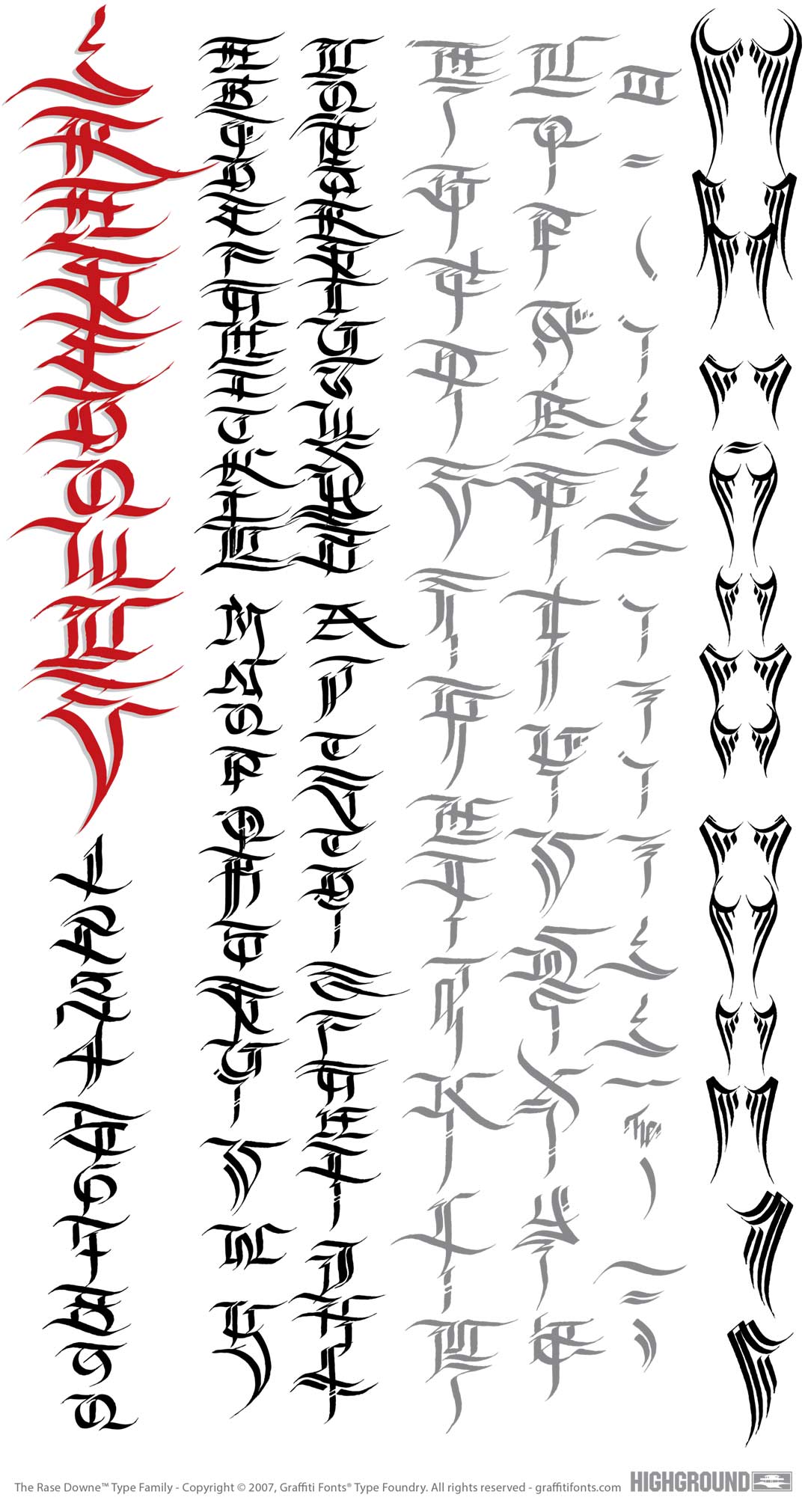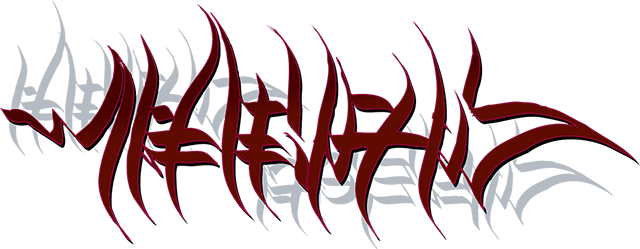
RaseDowne Font
RaseDowne Title Image
RaseDowne Graffiti Alphabet
RaseDowne Graffiti Font Family
Hand written calligraphy letters inspired by a mix of graffiti and gangland styles combined with influence from various eastern & old european scripts. This typeface is made to be rotated 90 degrees so it reads downwards making it especially useful for tattoo designs, logos & other unique tasks. The 129 characters include a main alphabet, a caps alphabet that adds flourishes to the bottom of each word as well as several alternate letters, flourishes & symbols.